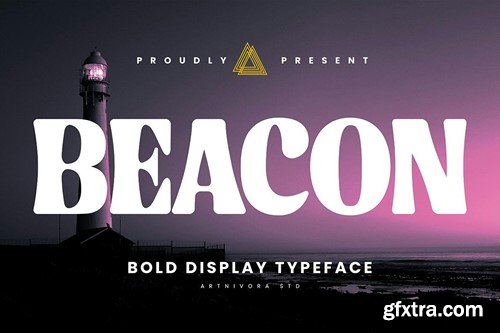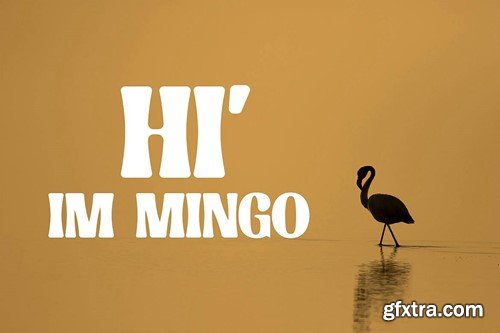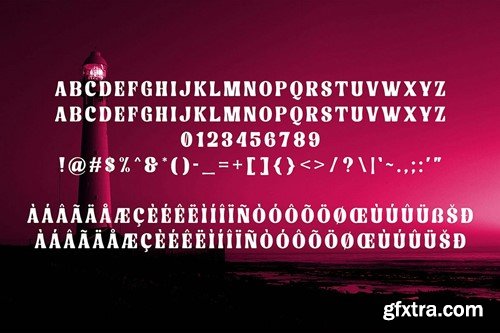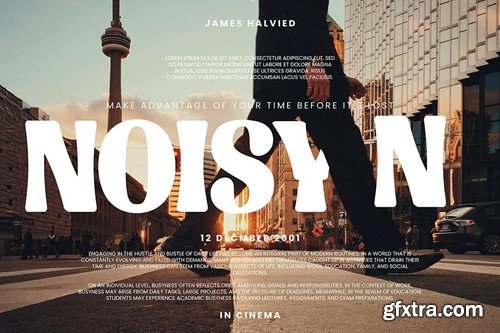
贝肯 - 坚毅无霸式字体 4DYT9AU
Beacon - Bold Display Font
Introducing Beacon, a simple and bold display font. So perfect for you who needs a typeface for logo designs, magazine, social media, brochure, and many more. Features Files Includes Thank you for checking and i hope you enjoy it.